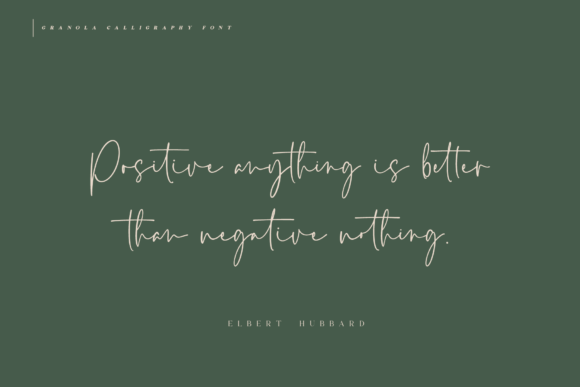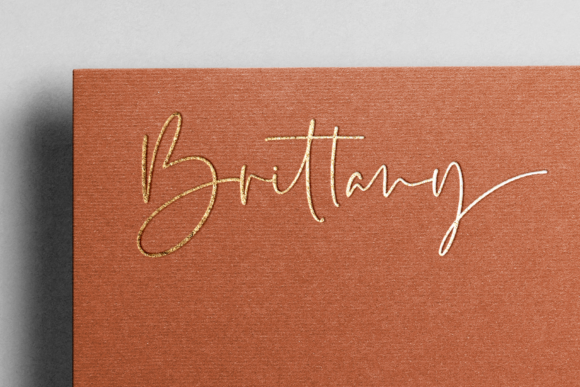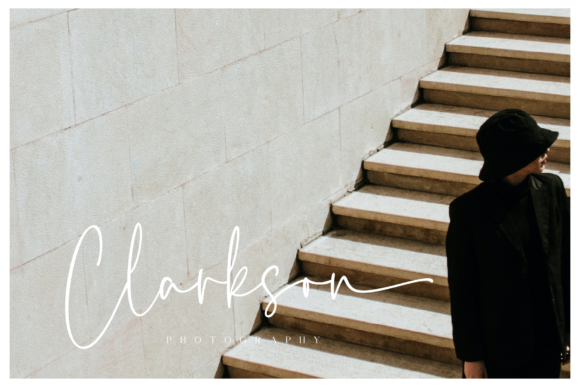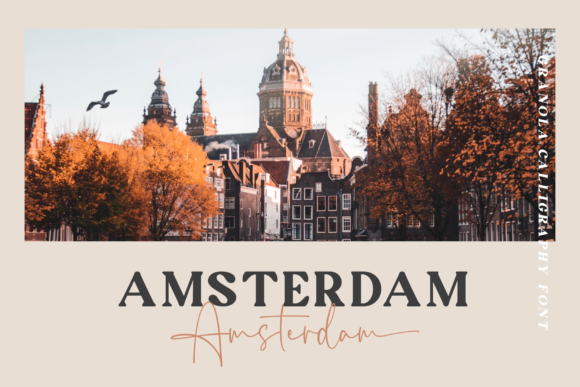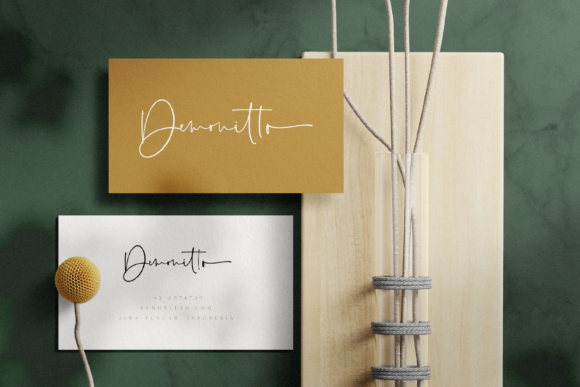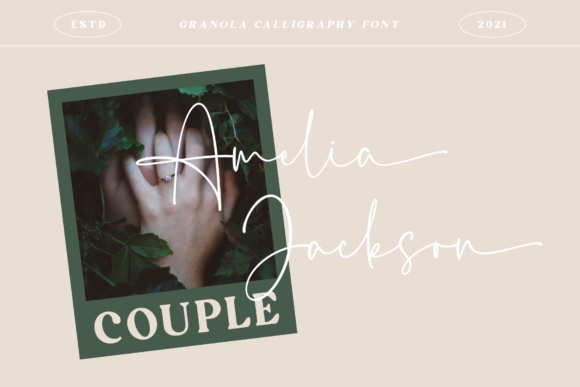
Introducing Granola Font: The Perfect Choice for Elegant Designs
Are you looking for a font that exudes elegance and sophistication? Look no further than Granola Font, a stunning script font that is sure to elevate your designs to the next level. With its thin lettering and graceful curves, Granola Font is the perfect choice for creating beautiful wedding invitations, stationary art, social media posts, and more.
What Makes Granola Font So Special?
Granola Font is a unique and ravishing script font that is sure to capture the attention of your audience. Its thin lettering and flowing curves give it a sense of elegance and sophistication, making it perfect for designs that require a touch of class. Whether you’re creating wedding invitations, branding materials, or social media posts, Granola Font is sure to make your designs stand out.
Key Features of Granola Font
• Thin Lettering: Granola Font features thin lettering that is both elegant and refined.
• Graceful Curves: The font’s flowing curves give it a sense of movement and fluidity, making it perfect for designs that require a touch of sophistication.
• Highly Versatile: Granola Font is perfect for a wide range of design applications, including wedding invitations, stationary art, social media posts, and more.
Uses for Granola Font
Granola Font is a highly versatile font that can be used for a wide range of design applications. Here are just a few ideas to get you started:
• Wedding Invitations: Create beautiful and elegant wedding invitations that set the tone for the big day.
• Stationary Art: Use Granola Font to create stunning stationary art, including greeting cards, thank you cards, and more.
• Social Media Posts: Add a touch of elegance to your social media posts with Granola Font.
• Branding Materials: Use Granola Font to create professional and elegant branding materials, including logos, business cards, and more.
Why Choose Granola Font?
There are many script fonts on the market, but Granola Font stands out from the rest. Here are just a few reasons why:
• Unique Style: Granola Font has a unique and ravishing style that is sure to capture the attention of your audience.
• High-Quality Design: Granola Font is designed with high-quality craftsmanship, ensuring that it looks great in any design application.
If you’re looking for a font that exudes elegance and sophistication, look no further than Granola Font. With its thin lettering and graceful curves, Granola Font is the perfect choice for creating beautiful wedding invitations, stationary art, social media posts, and more. Its PUA encoding makes it easy to use, and its highly versatile design makes it perfect for a wide range of design applications. So why wait? Download Granola Font today and start creating stunning designs that will leave a lasting impression on your audience.